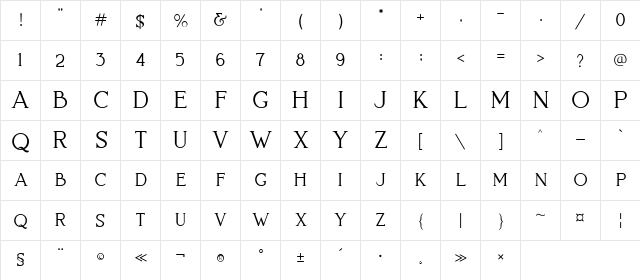
Lovelyn Regular
Design Context for Lovelyn Typeface
Lovelyn is a composed and adaptable typeface that performs quietly and consistently across a wide range of design contexts.